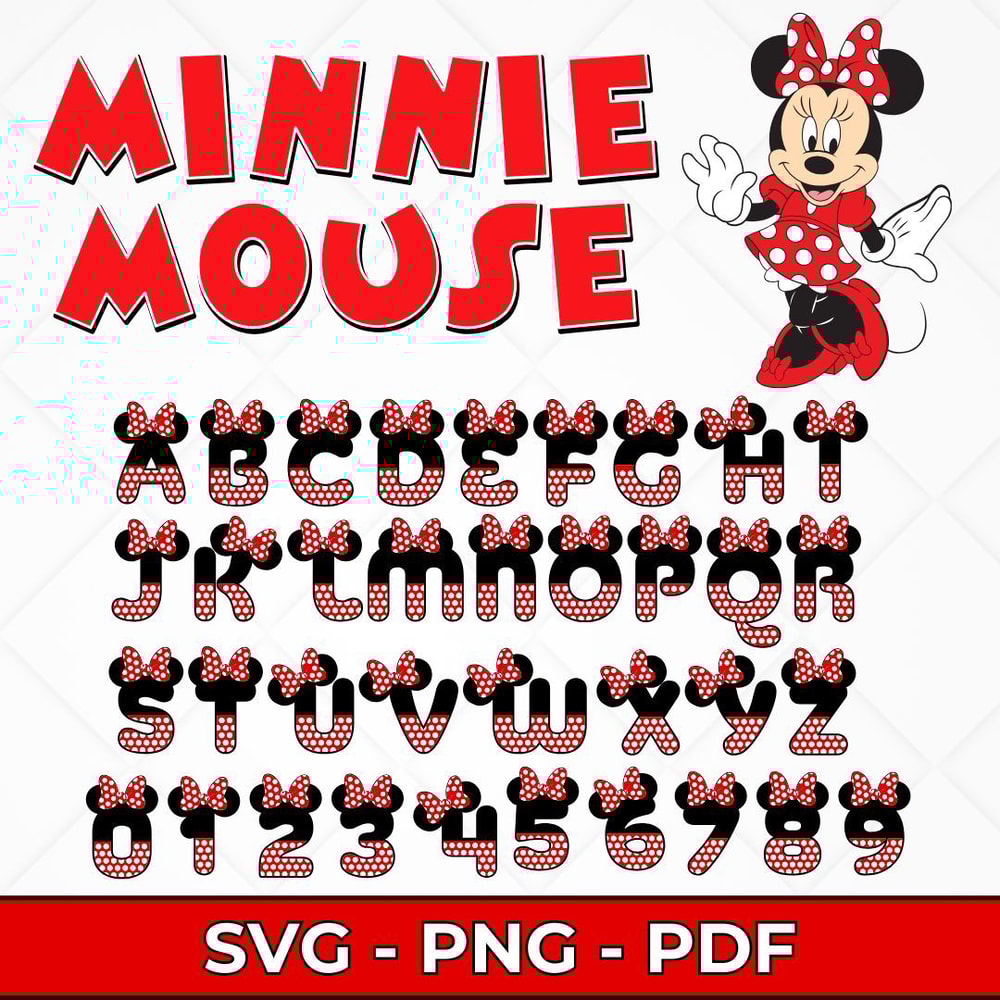
Minnie Mouse Font SVG Bundle, Disney Minnie Font Designs, Minnie Mouse Alphabet SVG, Customizable SVG Fonts
Add a touch of Disney magic to your crafts with our Minnie Mouse Font SVG Bundle! This bundle features charming, Minnie Mouse-inspired fonts, perfect for creating personalized designs for any occasion. From t-shirts and mugs to party decorations and greeting cards, these fonts will make your projects stand out.